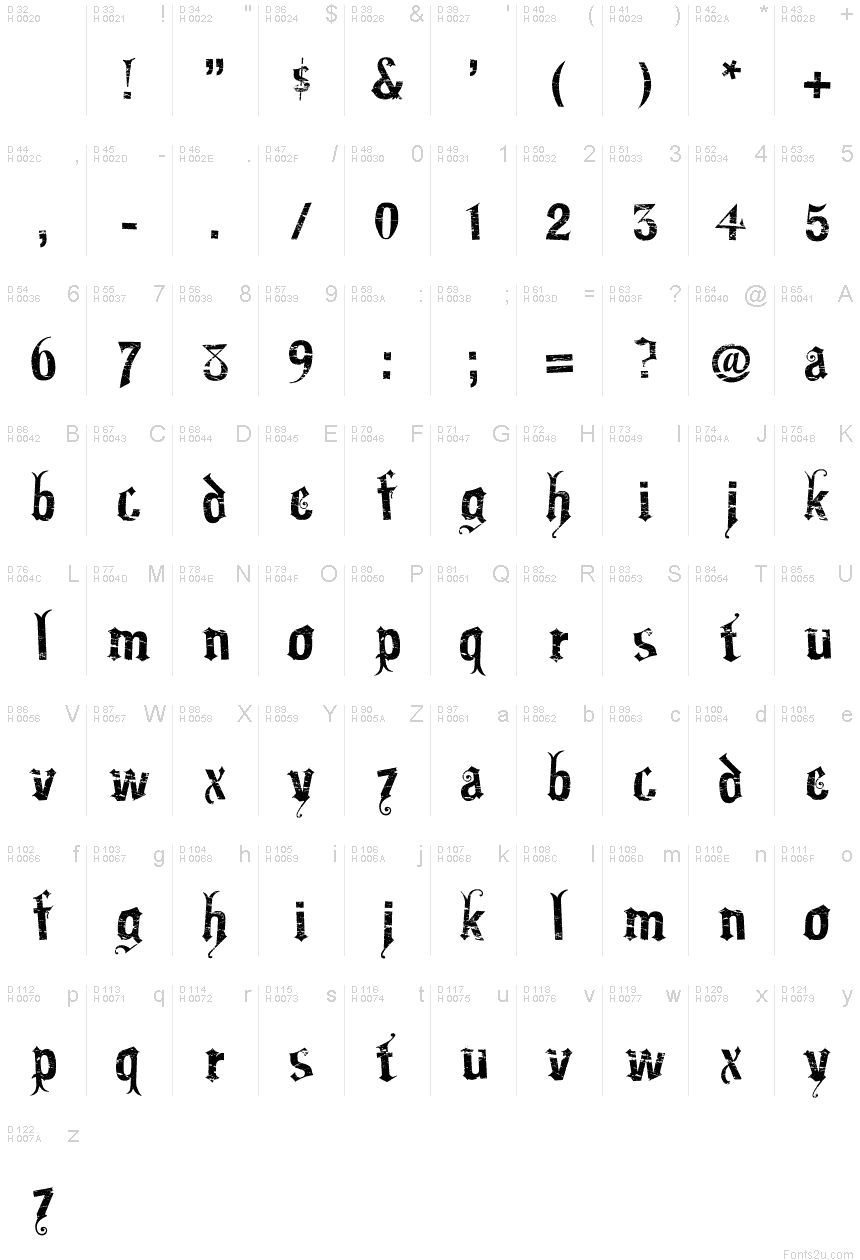
Gartentika
Gartentika font is a free decorative display typeface that splatters gothic drama across the page. Thick, inky strokes twist into sharp angles and curly hooks, while the eroded texture makes every letter look scraped, scratched, and weather‑worn. It feels like blackletter dragged through a gritty alley-ornate, but cracked and dangerous.
Using Gartentika, you can push horror posters, metal band logos, dark fantasy book covers, game titles, Halloween invites, and edgy skate graphics into full impact territory. This free font works best huge, where the distressed details can breathe; pair it with a clean, narrow sans for body copy to keep the chaos under control.
Inspired by Frakturika from StereoType http://www.stereo-type.net/